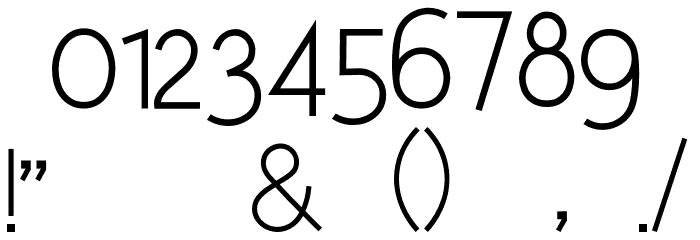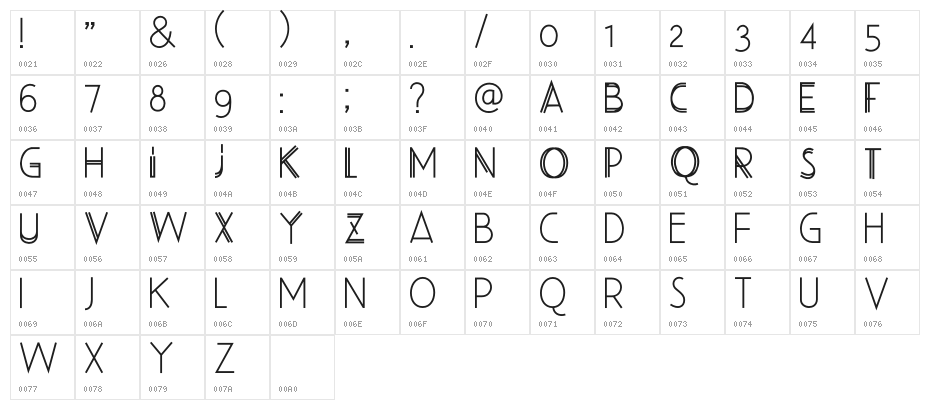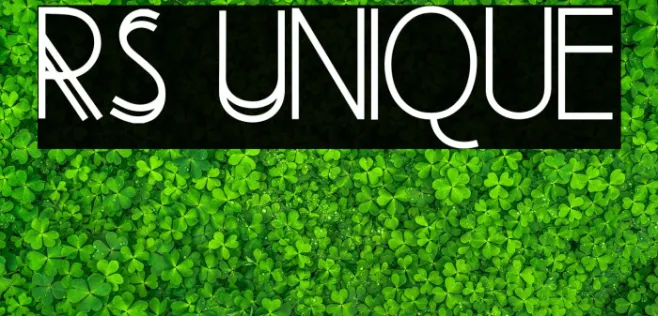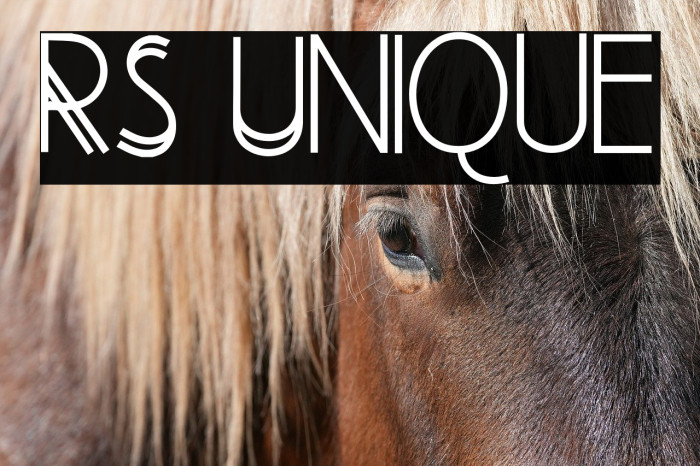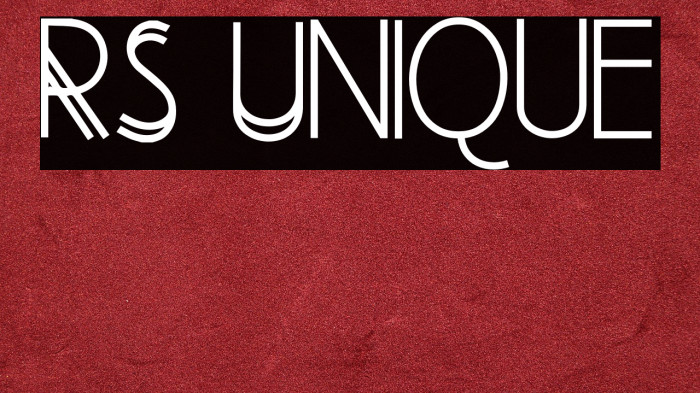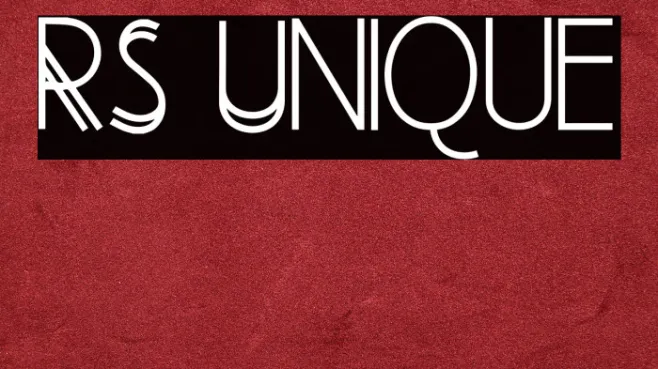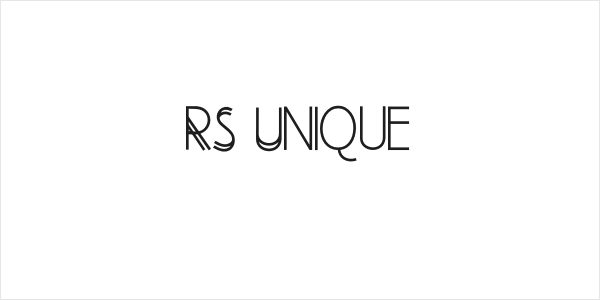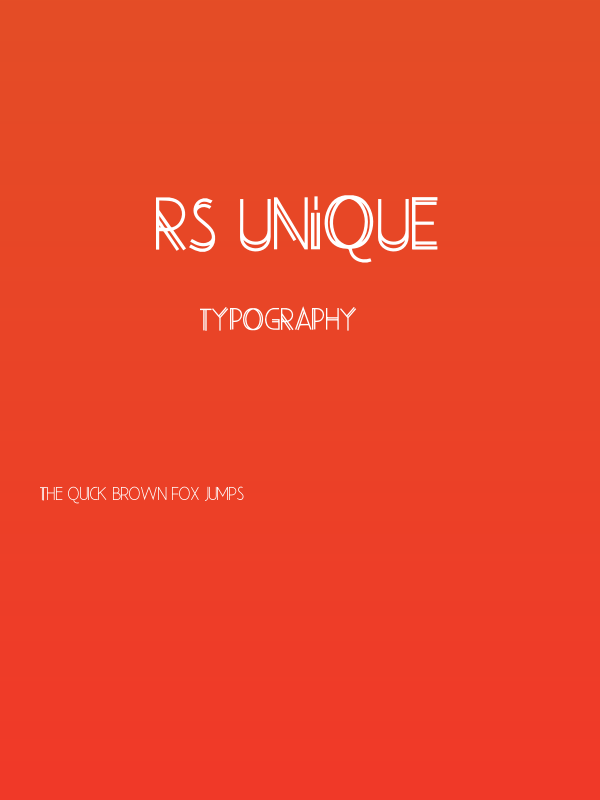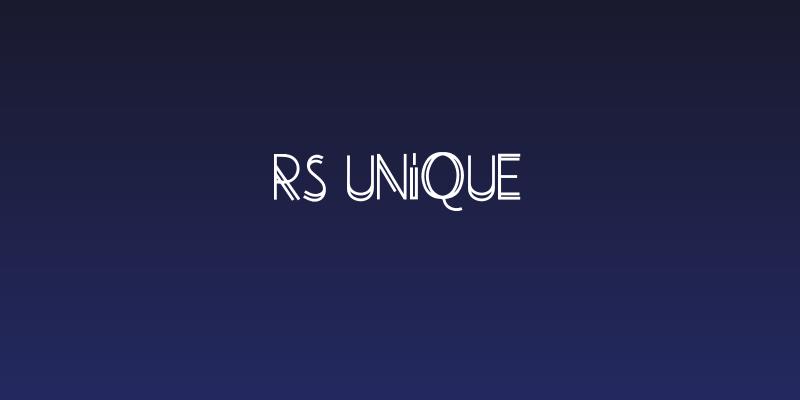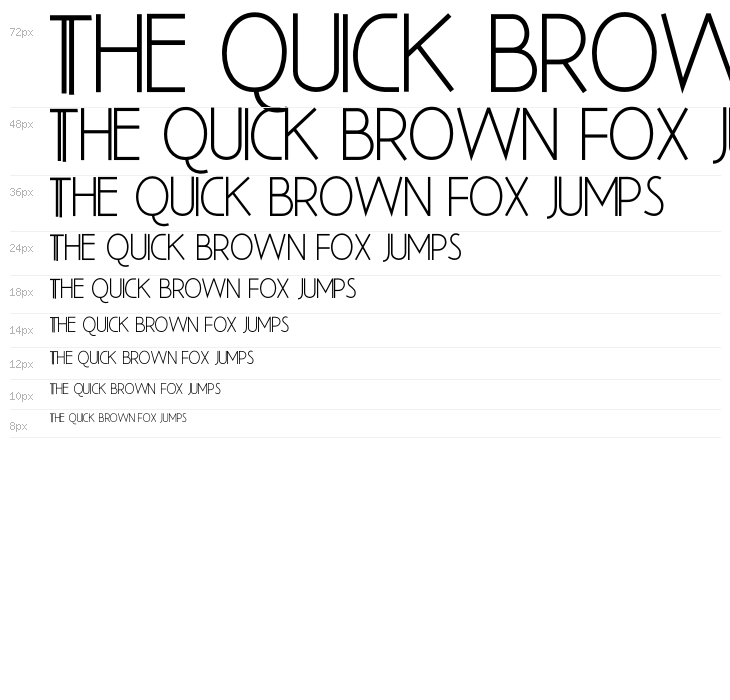
RS Unique Font
RS Unique Description
This font features a modern and geometric design with a unique blend of bold and thin lines. The uppercase letters are characterized by their clean, straight lines and sharp angles, creating a sense of precision and clarity. The lowercase letters maintain a similar geometric style, offering a harmonious balance between the two cases. Numbers are designed with the same attention to detail, ensuring consistency across all characters. Special characters are included, each crafted to match the overall aesthetic. The font's distinct style makes it suitable for a variety of design projects, where a contemporary and stylish look is desired.
| Proposed Projects | Ideal for branding, advertising, posters, and digital media where a contemporary look is needed. |